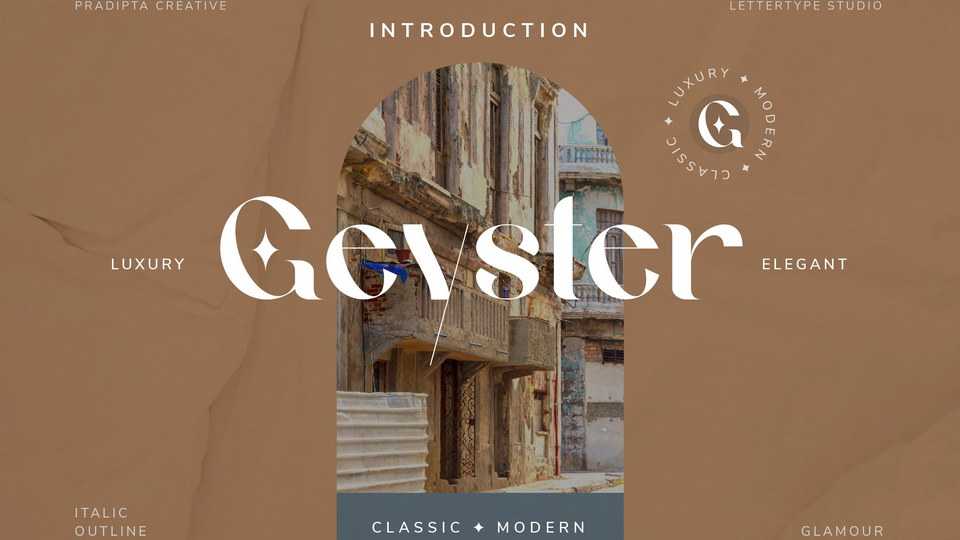
Download Geyster font, a stylish and classic display typeface, featuring the perfect amount of trendiness. Masterfully designed, Geyster font will bring each of your creative ideas to the highest level.
Designer: Pradipta Creative